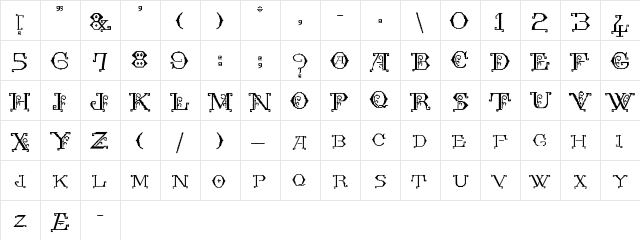
Kingthings Embroidery Regular
| Designer | Kevin King: Kingthings 2002 |
Design Context for Kingthings Embroidery Typeface
Kingthings Embroidery is a composed and adaptable typeface that performs quietly and consistently across a wide range of design contexts. The delicate stroke weight brings airiness and refinement to layouts.